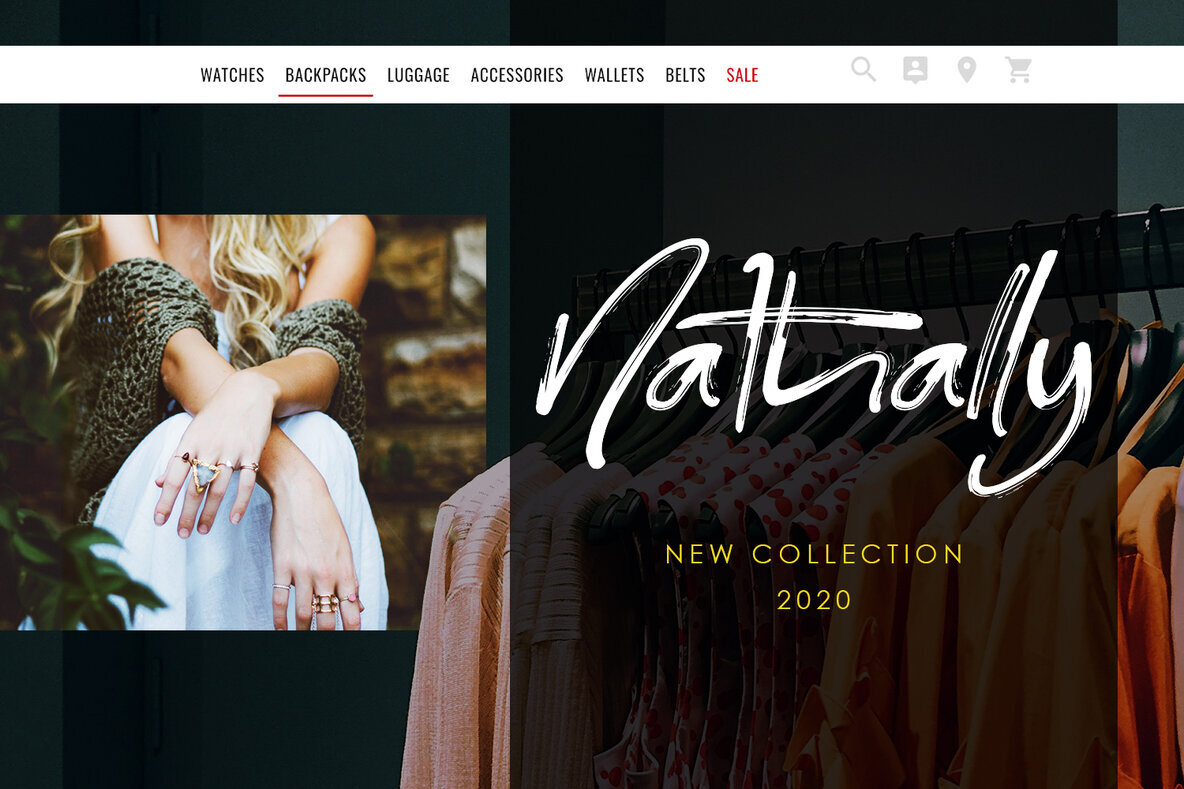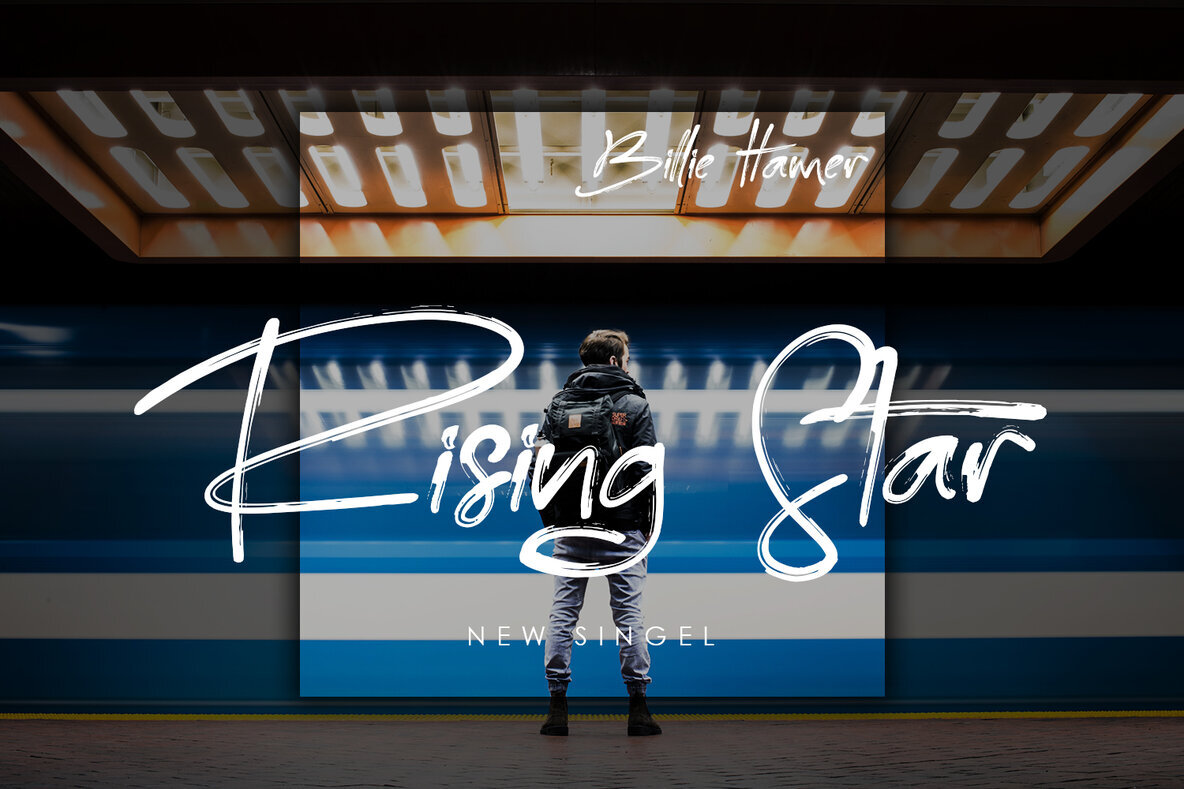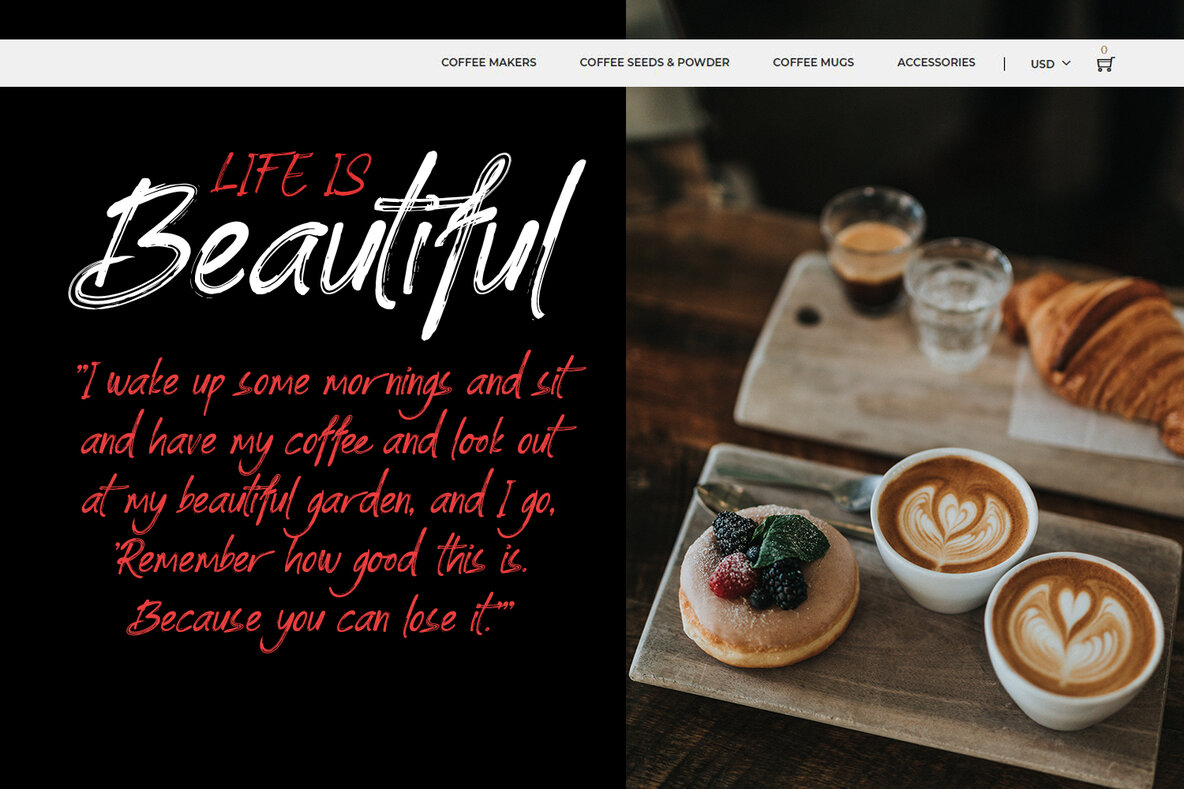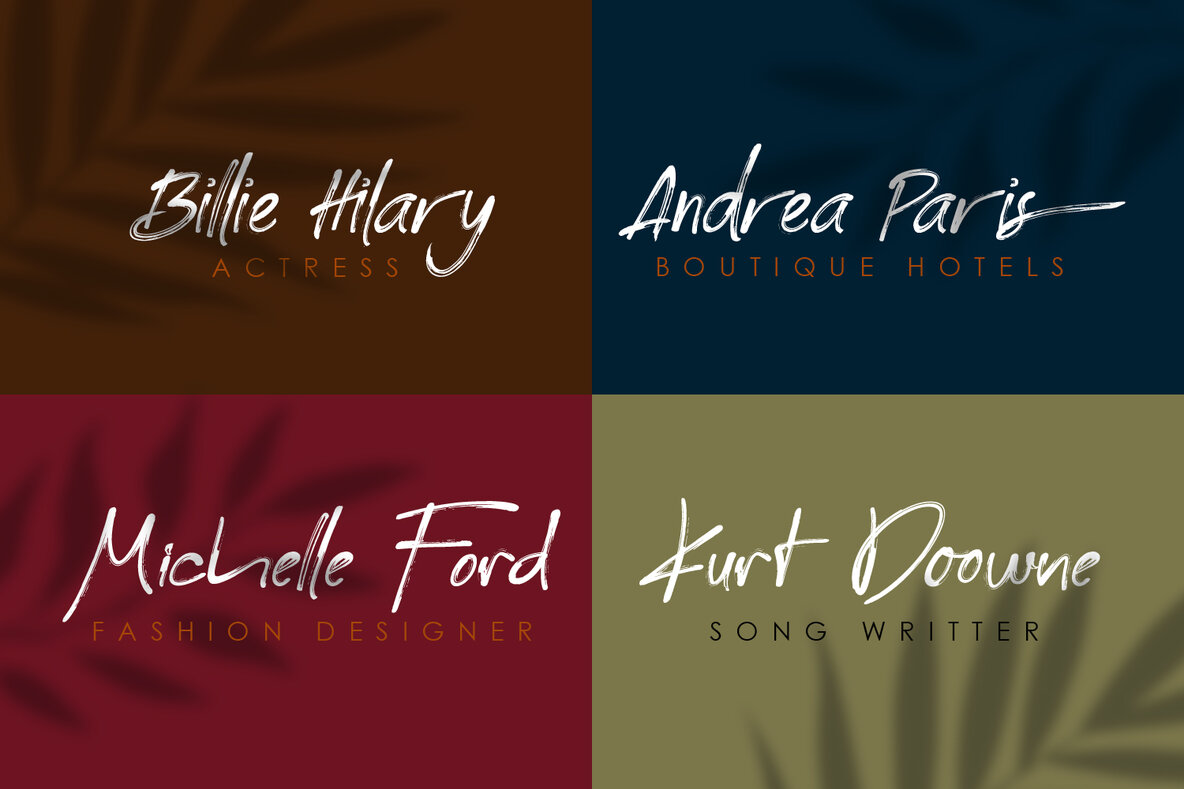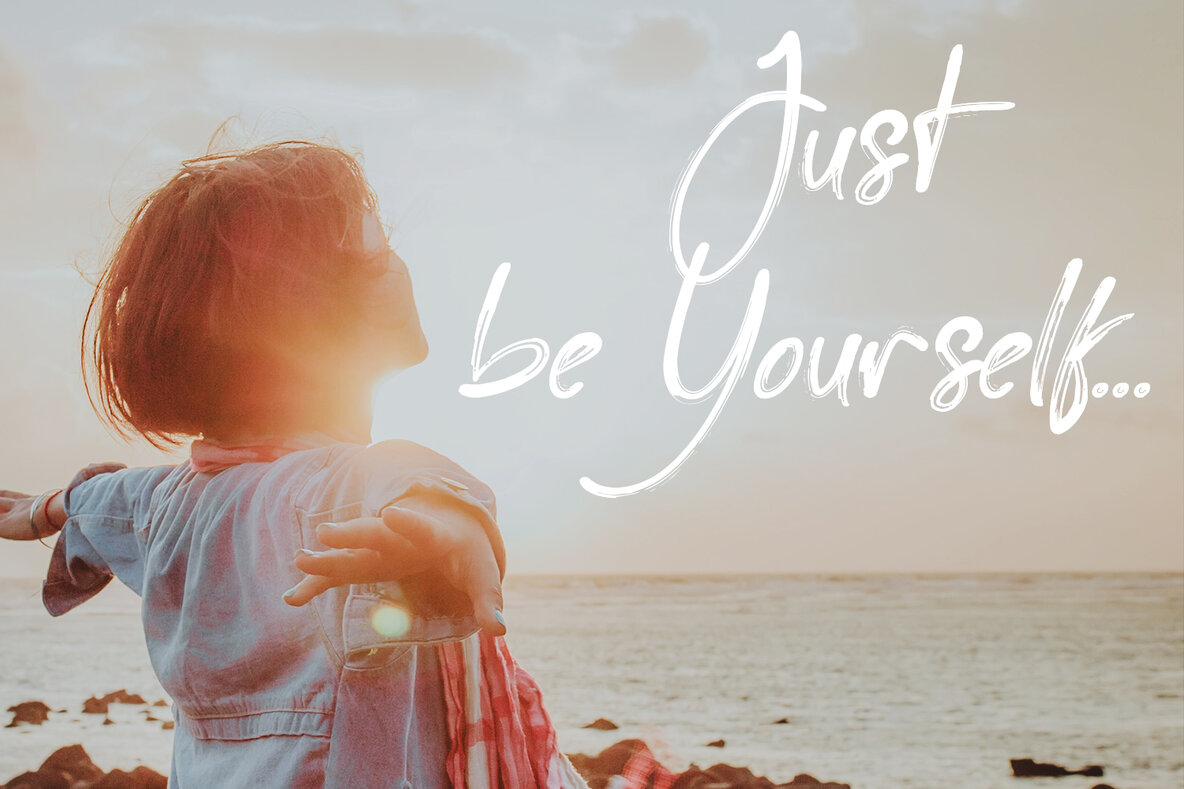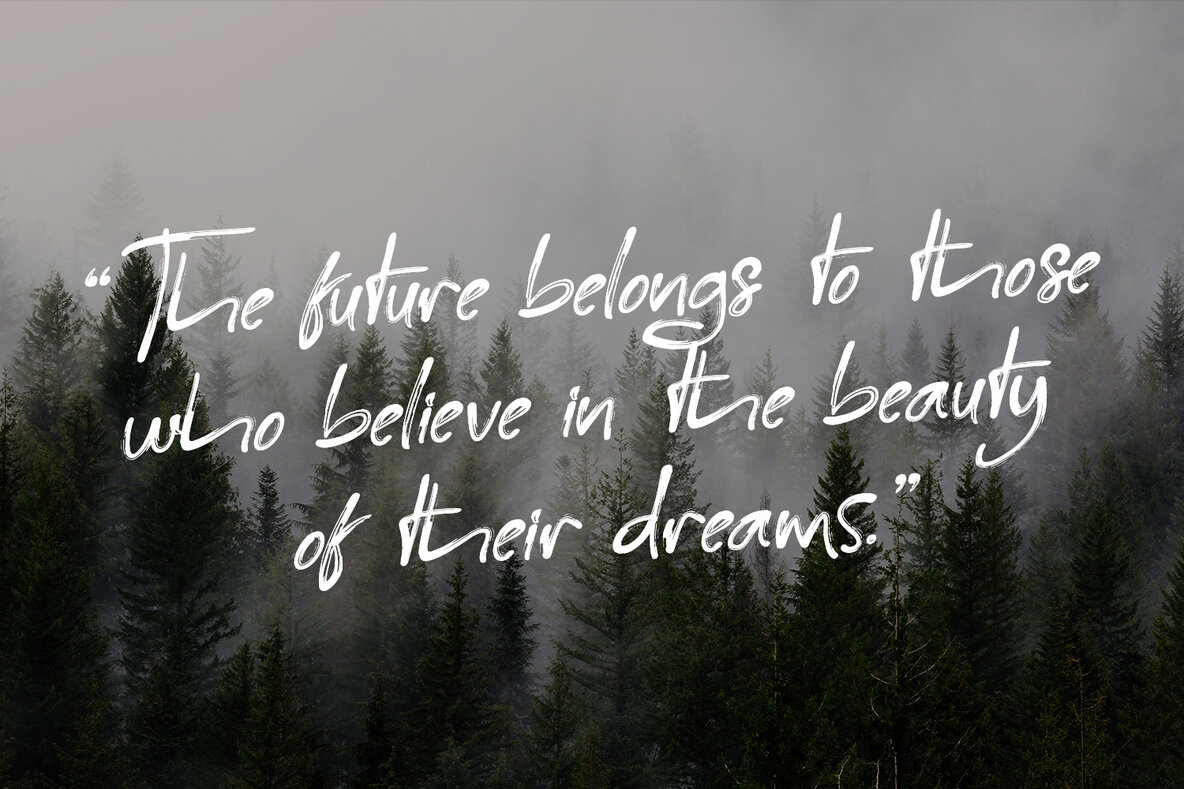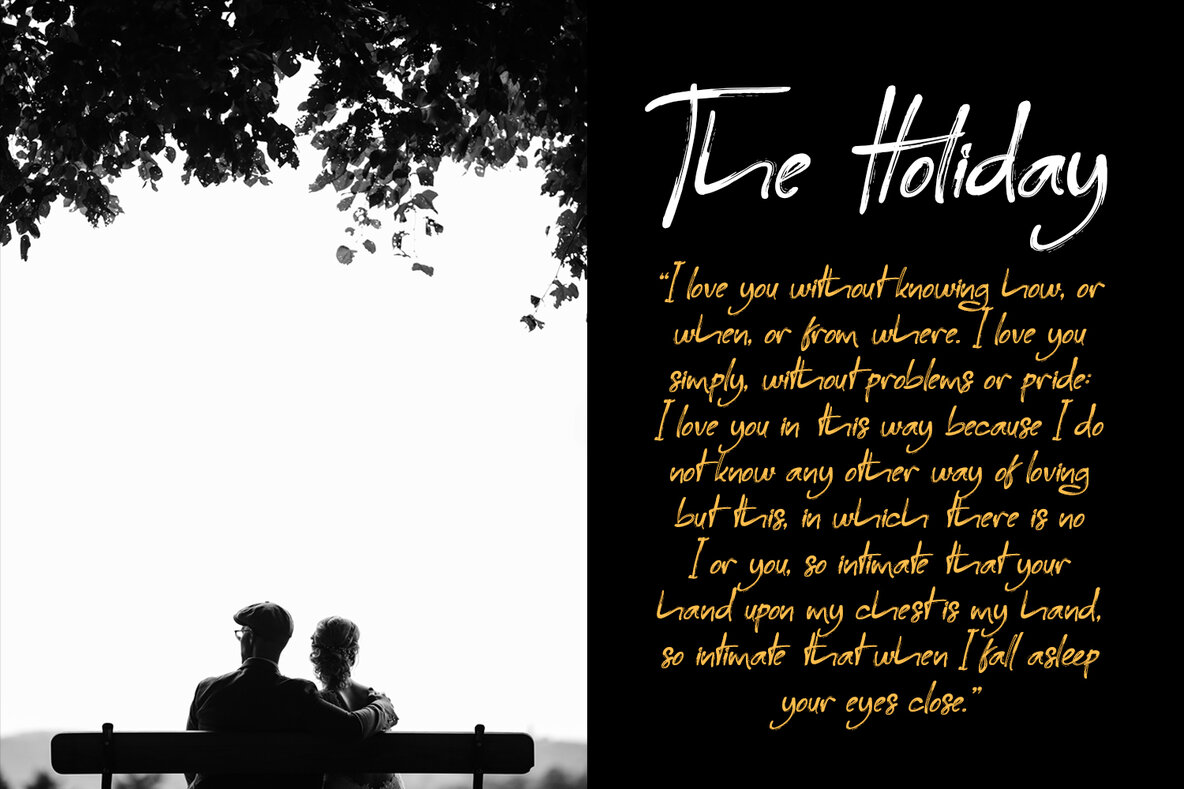
Reingttoon Font
Reingttoon offers a dynamic and personal touch, perfectly suited for projects aiming to make an impact. With its flowing brush style, this typeface is ideal for capturing attention in creative mediums.Reingttoon: Expressive Handwritten Brush Font